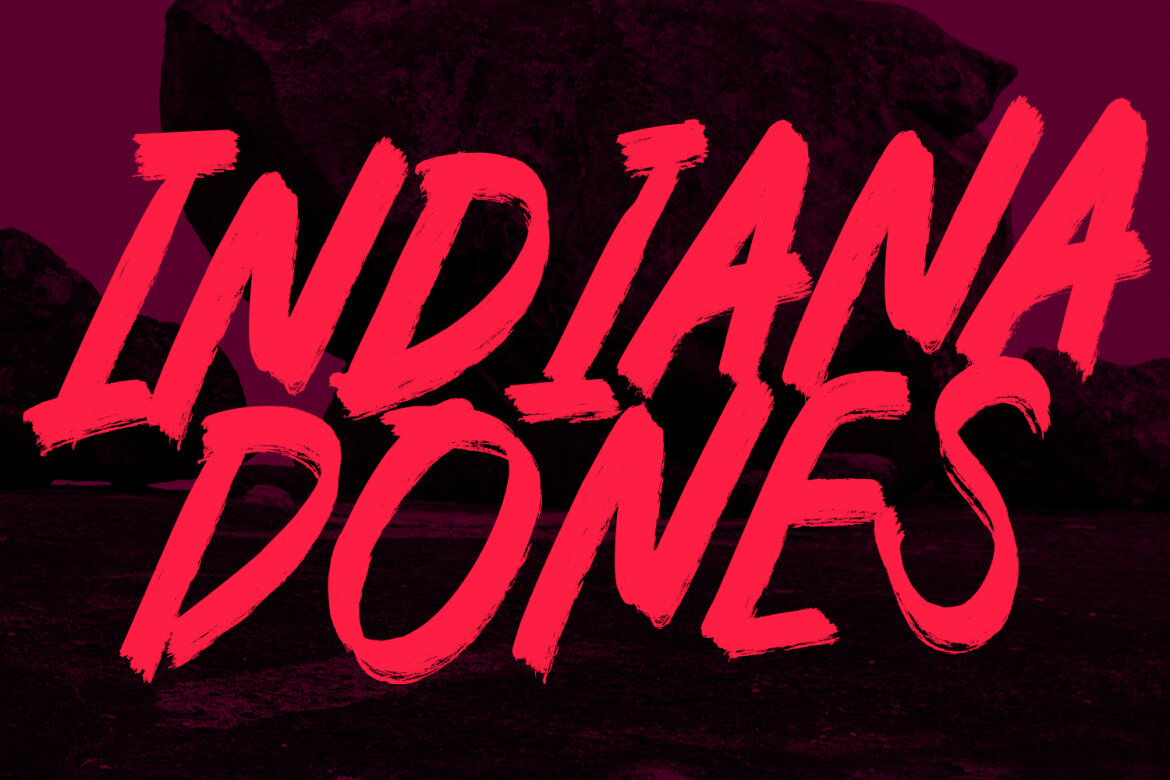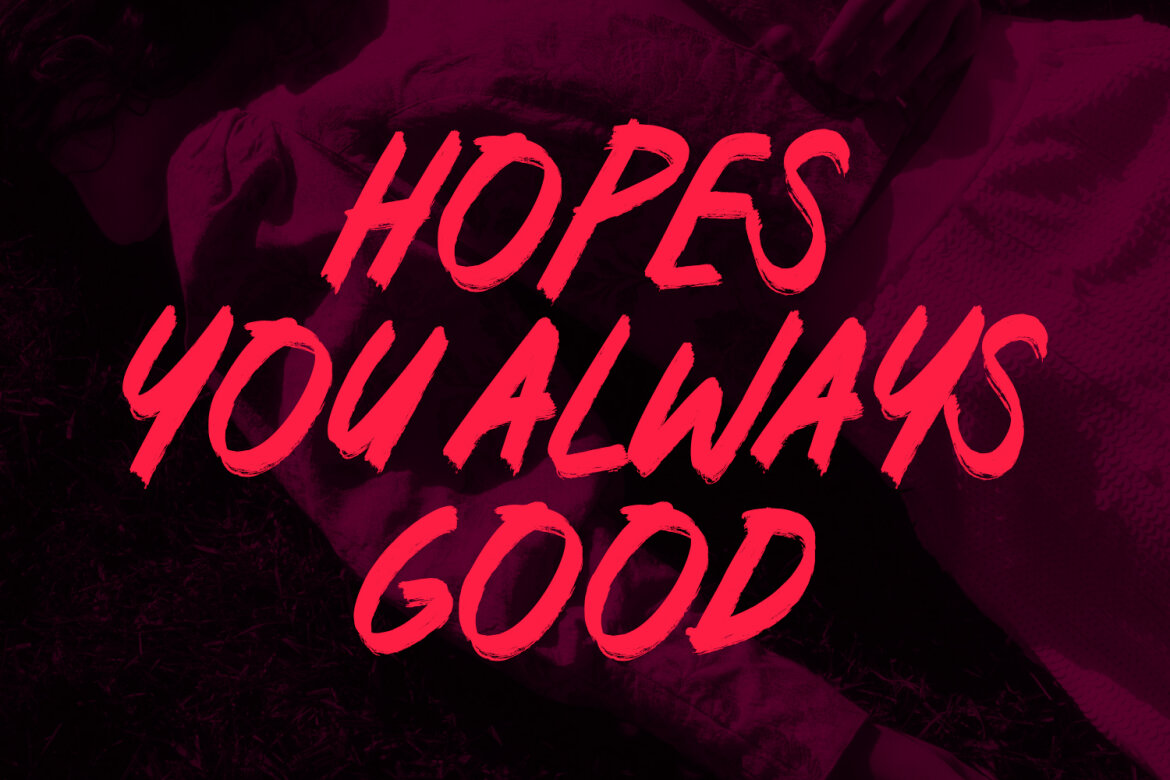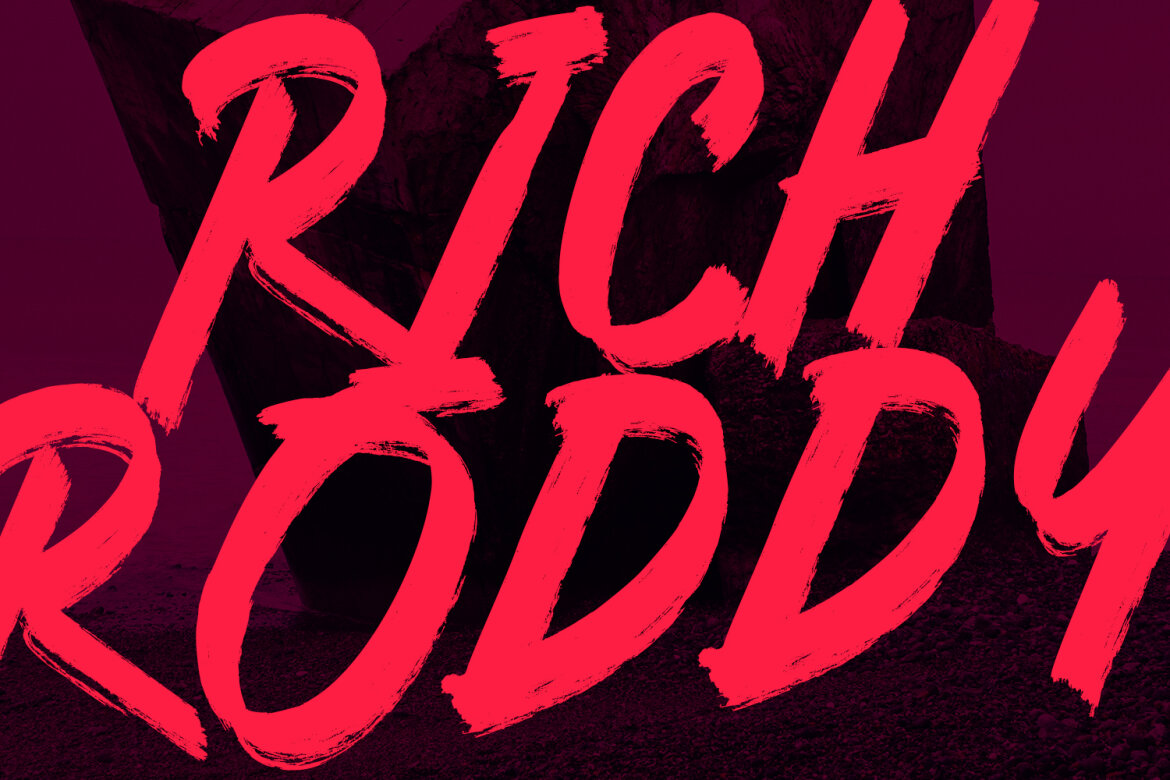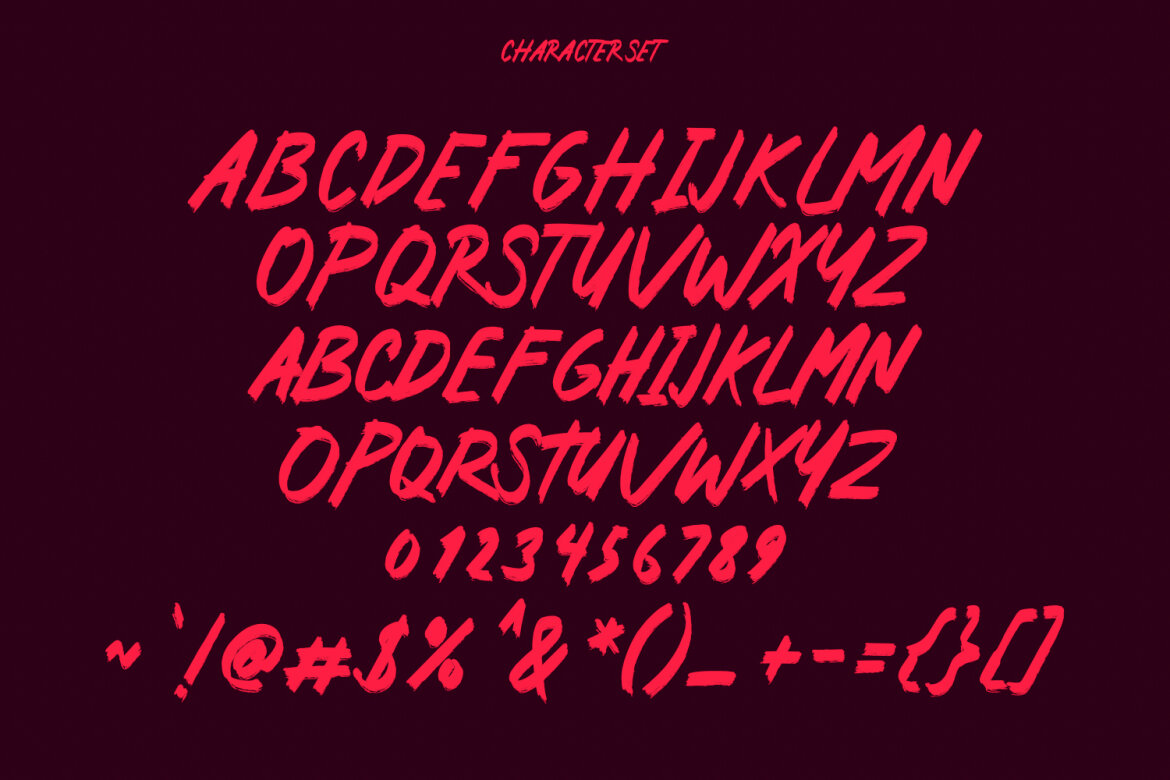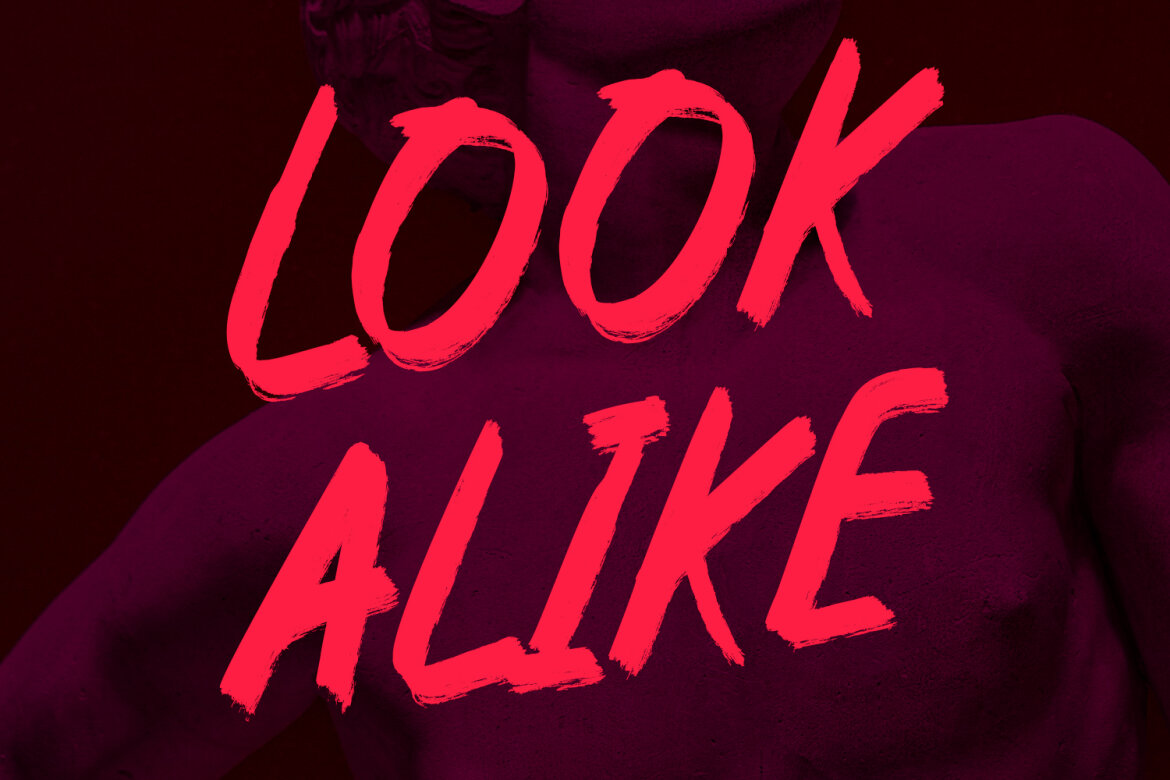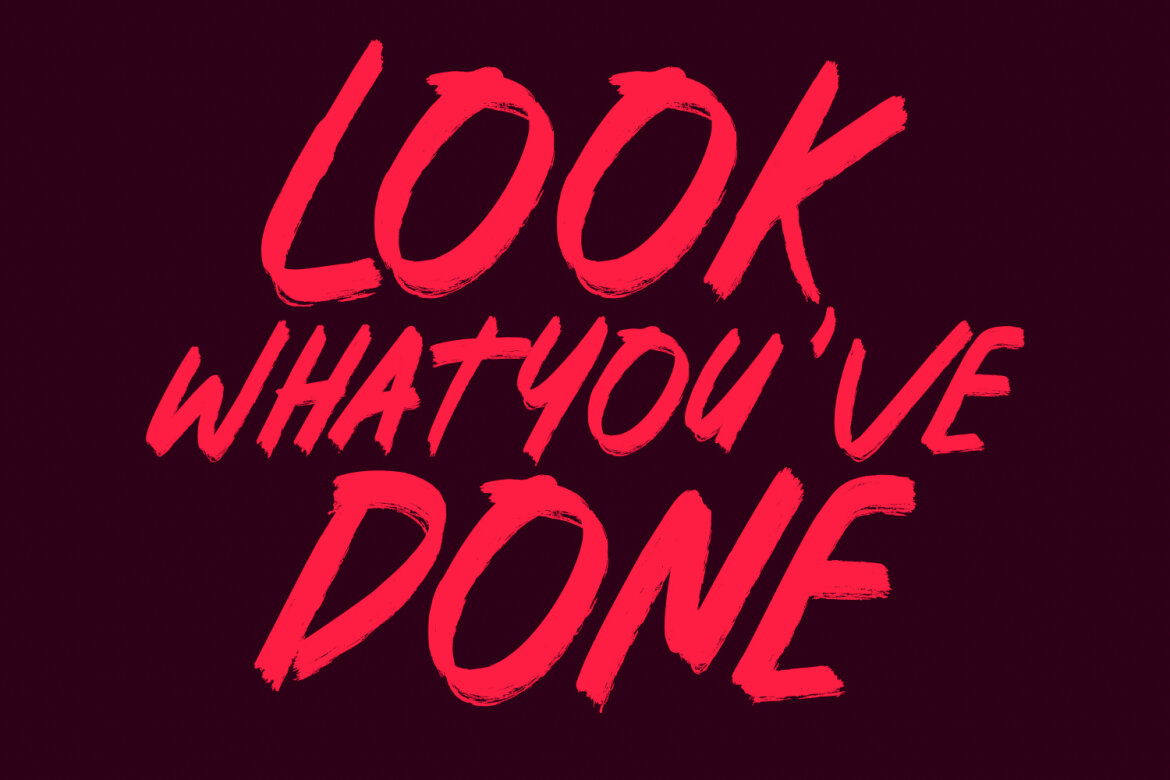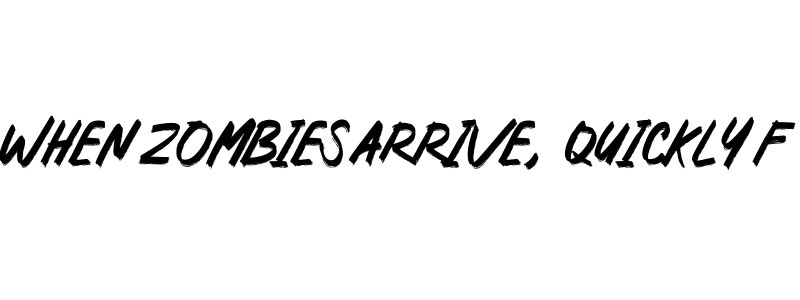
Rotten Core FREE Brush Font
Rotten Core
Rotten Core is a slant handwritten brush font. With bold rough brush stroke, fun character with a bit of ligatures and alternates. To give you an extra creative work. Rotten Core font support multilingual more than 100+ language. This font is good for logo design, Social media, Movie Titles, Books Titles, a short text even a long text letter and good for your secondary text font with sans or serif. Make a stunning work with Rotten Core font.